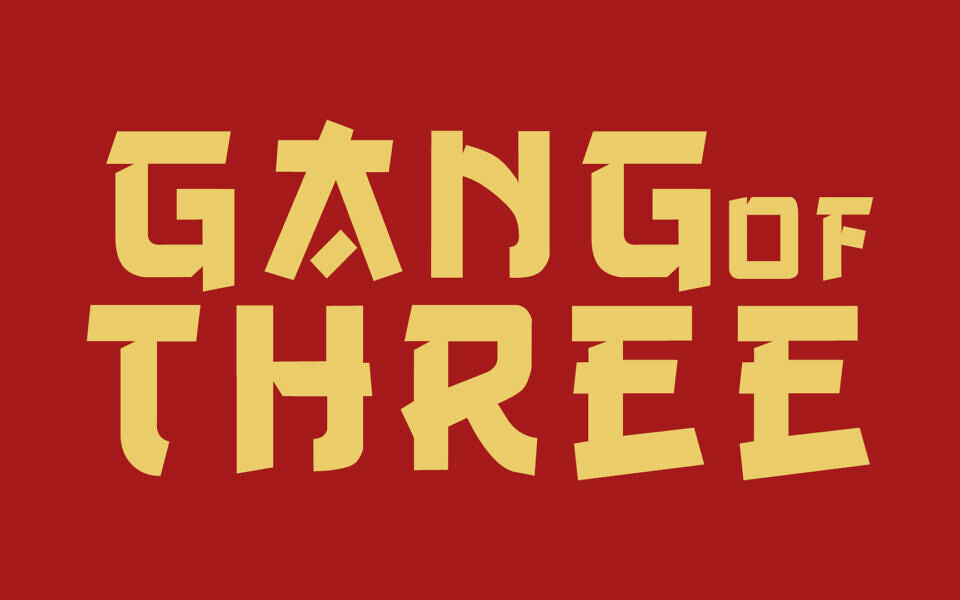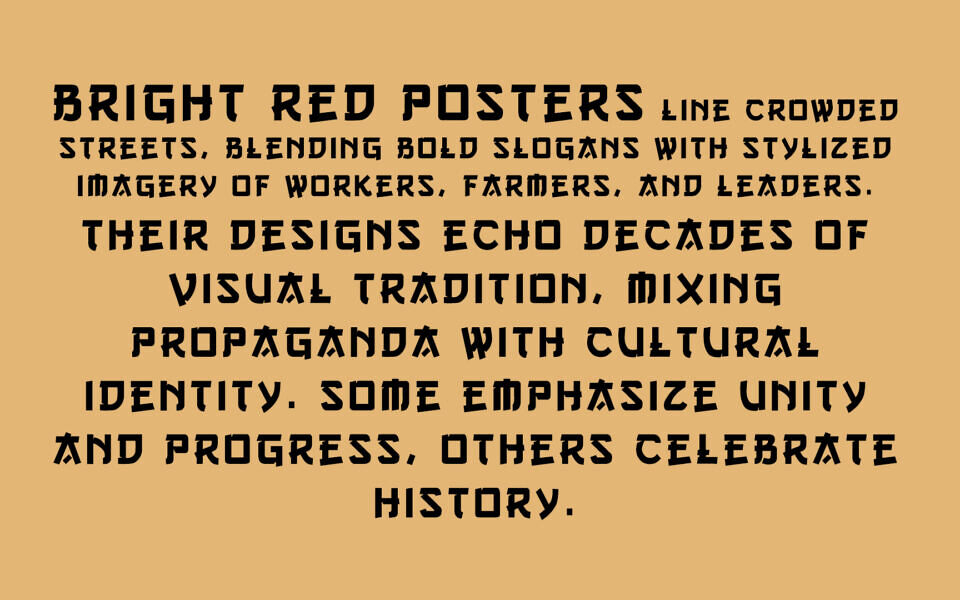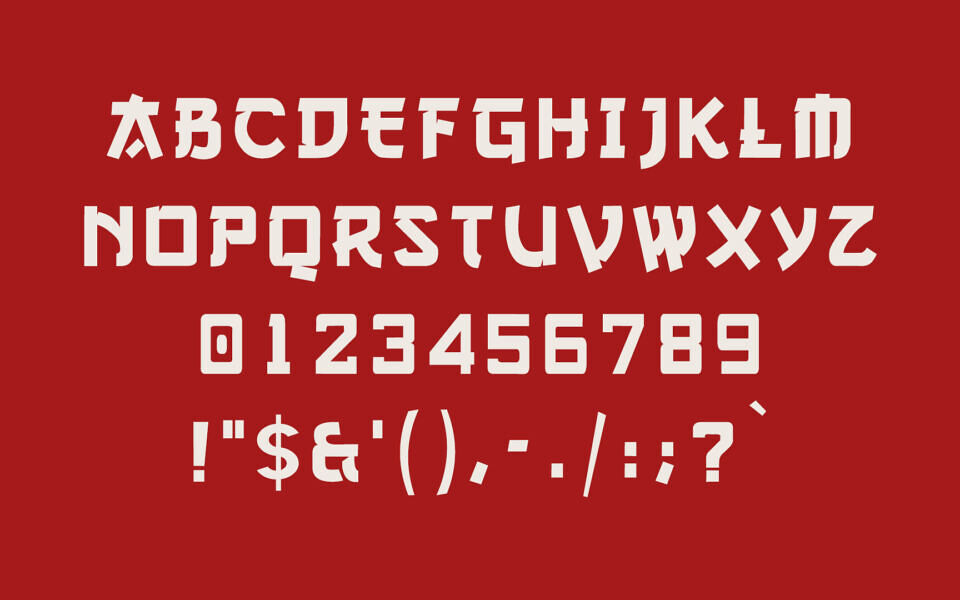
Gang of Three is a bold display typeface by Vic Fieger, featuring sharp, angular letterforms and a strong geometric structure that delivers an energetic, eye-catching presence.
Its visual style is directly inspired by typography found on Chinese political posters and the rugged aesthetic of the US album cover for The Clash’s Give ‘Em Enough Rope. The result is a high-impact, energetic design that captures a unique blend of historical propaganda art and classic punk rock spirit.